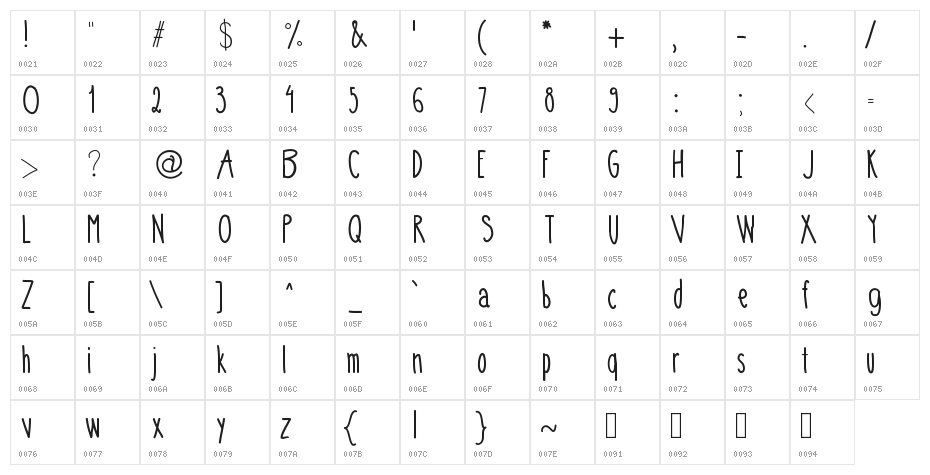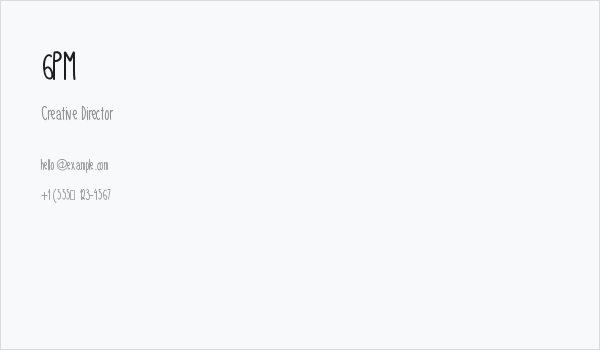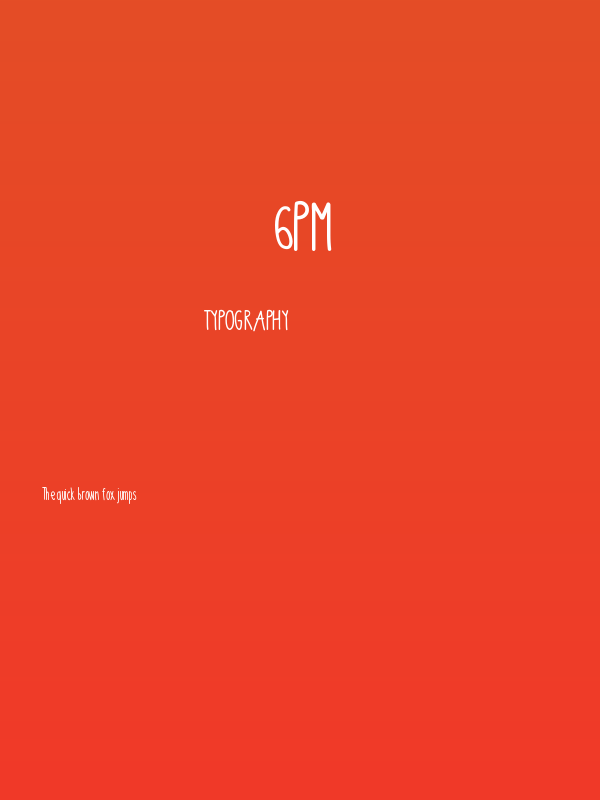
6PM Font
6PM Description
This playful and whimsical font features tall, narrow characters with a hand-drawn appearance. The uppercase letters are slightly uneven, adding a casual and friendly vibe. Lowercase letters maintain the same playful style, with rounded edges and a consistent stroke width. The numbers are similarly styled, ensuring a cohesive look across all characters. Special characters are included, matching the overall aesthetic with their quirky and approachable design. This font is perfect for projects that require a fun and informal touch, such as children's books, playful branding, or casual invitations.